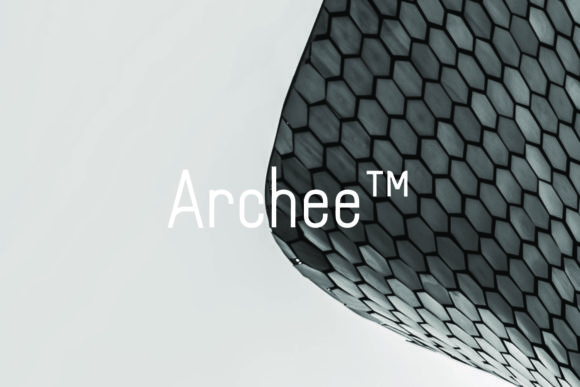
Venture into the realm of visual enchantment with Archeeâ„¢, a sans serif font family that ignites creativity and captivates audiences. Its clean lines and modern aesthetics seamlessly adapt to a myriad of projects, from captivating posters that command attention to elegant branding that exudes sophistication. Prepare to unveil your creative prowess as Archeeâ„¢ transforms your designs into mesmerizing works of art.
Immerse yourself in a world of versatility, where Archeeâ„¢ effortlessly complements an array of projects, breathing life into your creative endeavors. Unleash your imagination and watch as Archeeâ„¢ elevates your posters to new heights of visual appeal. Its crisp and legible characters ensure seamless readability, while its understated elegance adds a touch of refinement.
Archeeâ„¢ is the ultimate choice for storytellers seeking to create captivating narratives through the medium of design. Its clean lines and open counters create a foundation for powerful visual communication, inviting viewers to delve into the depths of your creative tapestry. With Archeeâ„¢ as your font of choice, your designs will transcend the ordinary and leave an indelible mark on the minds of your audience.
As you embark on your creative journey with Archeeâ„¢, witness the transformation of ordinary designs into extraordinary masterpieces. Its versatility knows no bounds, effortlessly adapting to a multitude of projects. Create logos that radiate professionalism, websites that exude elegance, and marketing materials that ignite excitement. Archeeâ„¢ is your creative ally, empowering you to craft designs that capture hearts and minds.